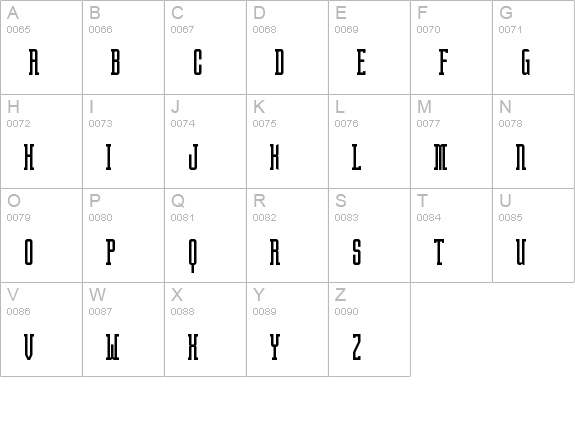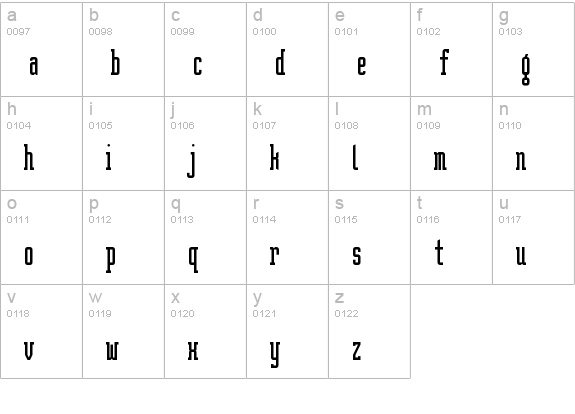
BrightonTwo Slab NBP Font Details
BrightonTwo Slab NBP font is a modern and stylish typeface that is perfect for a wide range of design projects. It features a unique slab serif design with clean lines and a bold presence. This font is ideal for creating eye-catching headlines, logos, posters, and more. With its strong and confident appearance, BrightonTwo Slab NBP font adds a touch of professionalism and sophistication to any design. Its versatility allows it to be used in both digital and print media, making it a valuable asset for graphic designers, marketers, and creatives alike. One of the best things about BrightonTwo Slab NBP font is that it is completely free to download. You can easily access and start using this font for your projects without any restrictions or limitations. It is available to download at FontsMarket.com, a trusted source for high-quality fonts. Whether you are working on a personal project or a client's design, BrightonTwo Slab NBP font will help you make a lasting impression. Its bold and distinctive aesthetic will grab attention and add a professional touch to your work. Don't miss out on the opportunity to enhance your designs with this truly remarkable font. Download BrightonTwo Slab NBP font for free today at FontsMarket.com and take your designs to new heights.